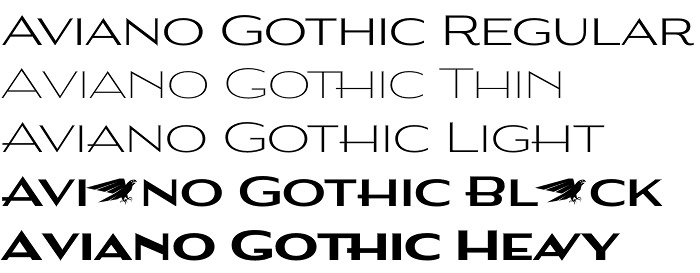
Aviano Gothic font
Aviano Gothic font by Jeremy Dooley – author of the recently celebrated Cabrito font – is a decent recruit in the Aviano typeface collection. Aviano Gothic font is a stylish mid-contrast Sans Serif with origins in the early 1900’s American engravers’ design and style. Although it is inspired by the copperplate printing technologies of the past Aviano Gothic is unique, advanced, and more closely related in structure and morphology to the other members of the existing Aviano font group.
Aviano Gothic presents its polished classy appearance to satisfy any need for high-end design such as jewelry, beauty, and other luxury products.
The full Aviano Gothic font family provides six different weights with plenty of OpenType features. Available are decorative alternates for replicating inscriptions and signage of the 20s and 30s. Style sets are offered, together with four full sets of art deco-inspired alternates, swashes, and titling, in addition to an expansive range of other alternates. Aviano Gothic font also features forty discretionary ligatures for inventive typographic compositions. Multilingual support also provided.
Several variants have been made to extend the usefulness of the typeface, and it makes for a fine substitute for Copperplate, ITC Blair or Engravers Gothic. Aviano Gothic font also pairs perfectly with the other members of the Aviano collection, including the original Aviano, Aviano Serif, Aviano Sans, Aviano Didone, Aviano Flare, Aviano Future, Aviano Wedge, Aviano Contrast and Aviano Slab.